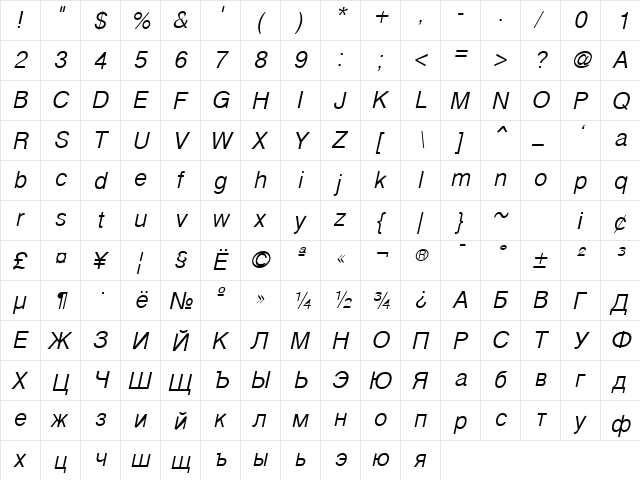
Cyrvetica Extra Light Oblique
Design Context for Cyrvetica Extra Typeface
Cyrvetica Extra takes a measured approach to typography — its balanced proportions and neutral character make it a reliable workhorse for both digital and print work. The slanted form adds forward momentum and visual energy. The delicate stroke weight brings airiness and refinement to layouts.